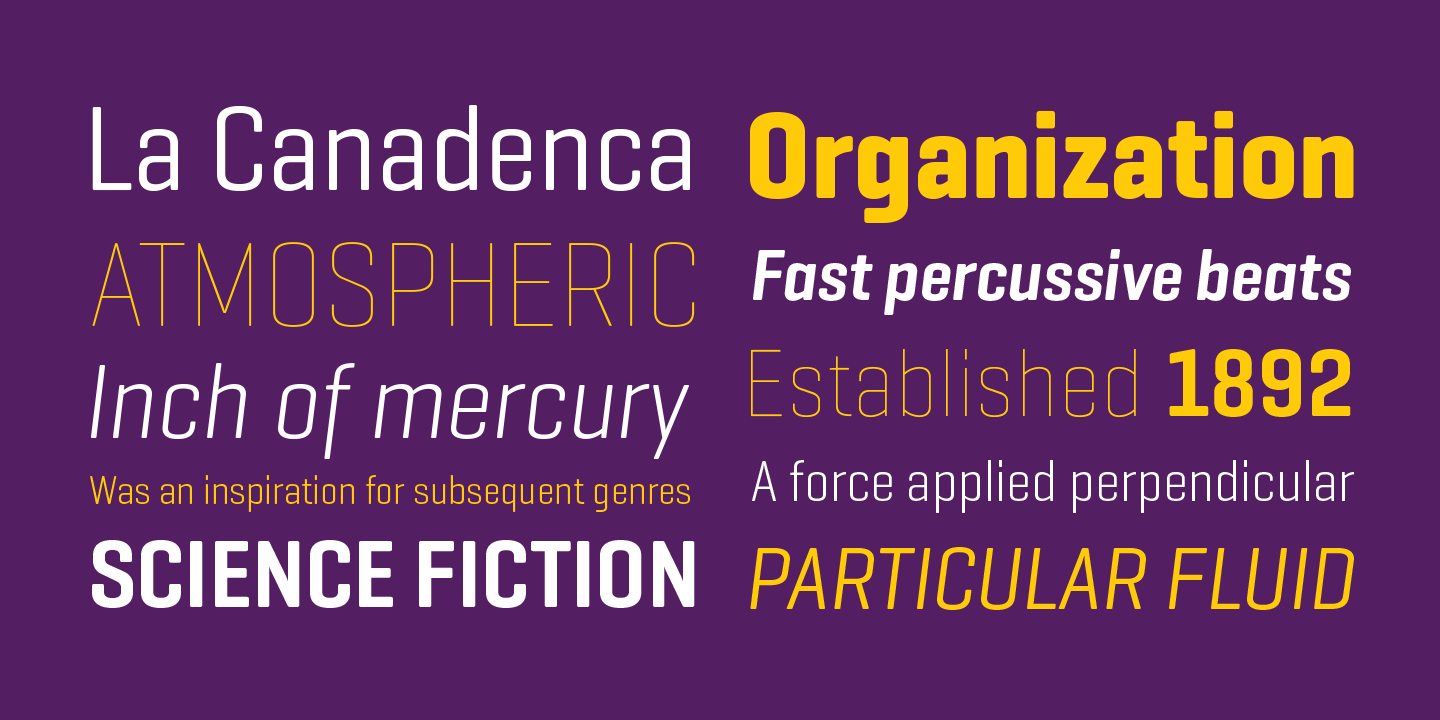
The Geogrotesque Condensed Series Font is perfect for space-efficient design projects including urban signage systems, modern magazine layouts, architectural presentations, contemporary poster designs, digital interface typography, compact advertising materials, editorial column layouts, and streamlined corporate communications. This versatile condensed typeface brings geometric clarity and spatial efficiency to any design project requiring maximum readability in minimal horizontal space with modern sophistication.
What makes Geogrotesque Condensed Series Font so exciting is its masterful optimization of geometric grotesk principles for narrow applications with letterforms that maintain exceptional clarity while conserving valuable design space. The letters feature precise geometric construction with condensed proportions that create immediate visual impact while ensuring excellent legibility at various sizes. This distinctive space-efficient character makes it perfect for projects that want to communicate modern efficiency, urban sophistication, and the compelling appeal of optimized geometric design in constrained layouts.
The Geogrotesque Condensed Series Font family typically includes comprehensive weight ranges from thin to black, complete with matching italic variations and ultra-condensed options. Many versions feature extensive language support, advanced OpenType features, and optimized spacing metrics that enhance its functionality for international design and digital applications.
Whether you're designing for urban environments, modern publications, or digital platforms, Geogrotesque Condensed Series Font Free Download offers the perfect solution for projects requiring geometric precision in space-constrained formats. This font transforms cramped design challenges into elegant solutions that immediately communicate modern efficiency, geometric sophistication, and the refined appeal of optimized typography to audiences appreciating contemporary design excellence and spatial intelligence.